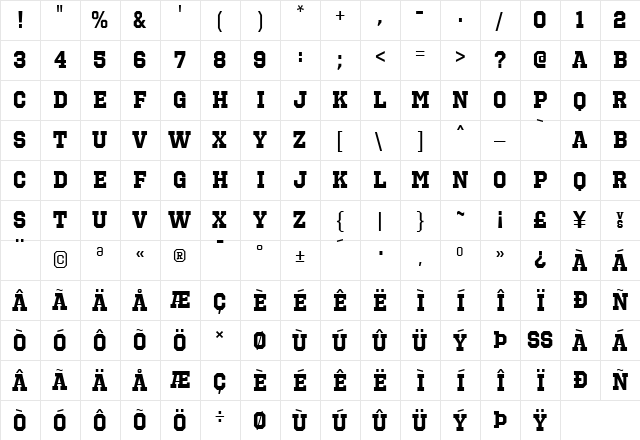
Octin Sports Bold
Design Context for Octin Sports Typeface
Octin Sports has the bold swagger of sports branding: strong, assertive letterforms designed to dominate headlines and jerseys alike. The heavy weight commands attention and anchors typographic hierarchies.
A natural choice for gym brands, fantasy sports, jersey lettering, and action-driven headlines.
Font Pairing: Use alongside a condensed or geometric sans for supporting copy — keep the pairing bold, functional, and free of ornament.
Pro Tip: Use Octin Sports in all-caps headlines where its athletic energy can fully express itself. Pair with a solid, simple sans for supporting text.